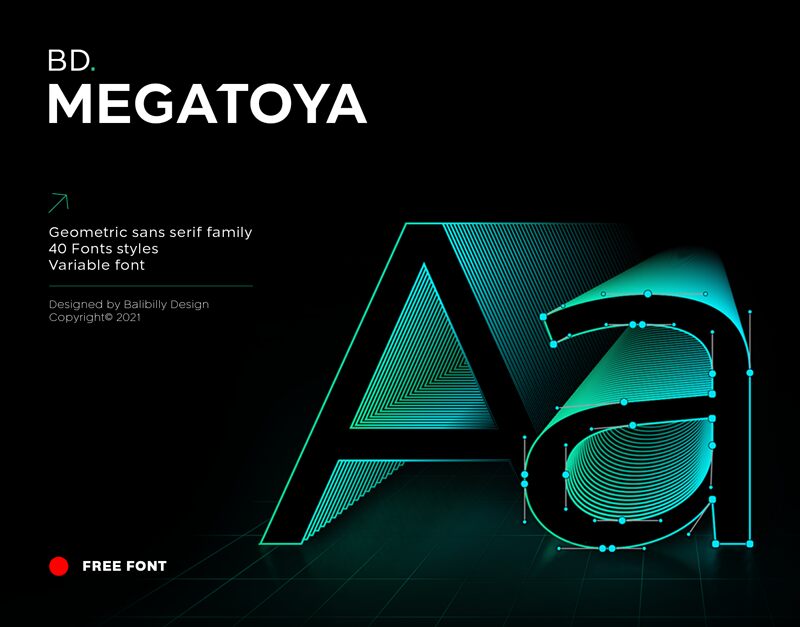
BD Megatoya Demo Semi Bold Italic
BD Megatoya is a geometric sans serif font family. Taking a careful approach, Balibilly Design creates the letterform with details on round characters to pursue harmony and leave a slightly boxy feel to the extended style. The stylistic alternate is one of our concentrations to make them versatile yet still preserve consistency in stem and metrics to provide good readability in small text. Overall, the various treatments for each character will encourage each other to dynamic colours, flexible, and functional impressions in their application.